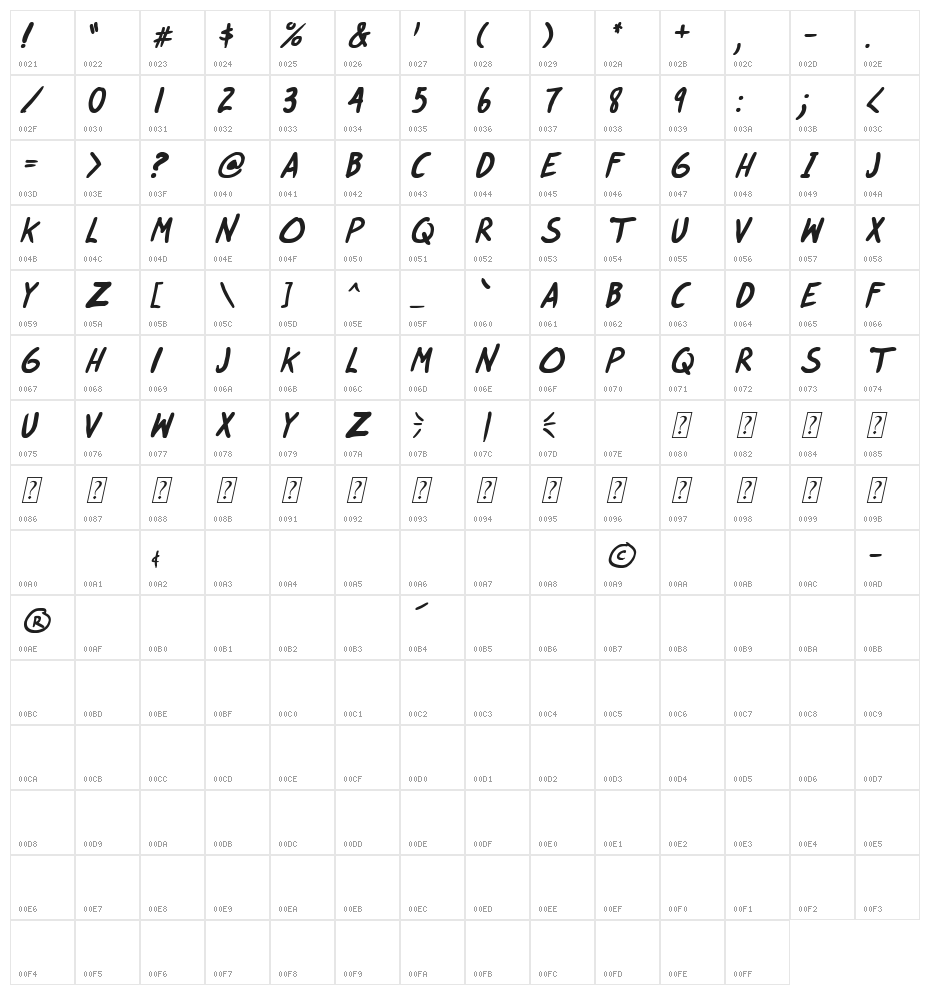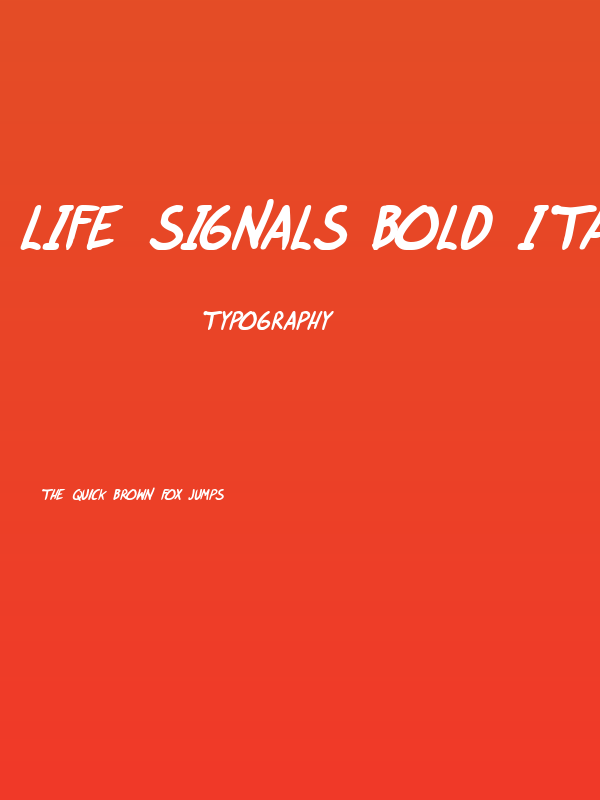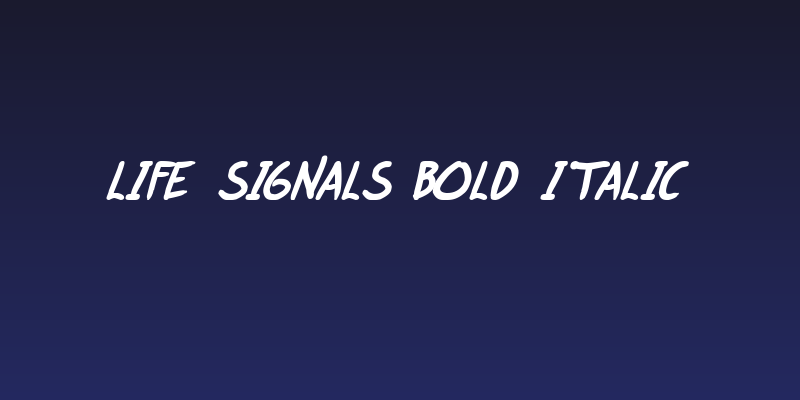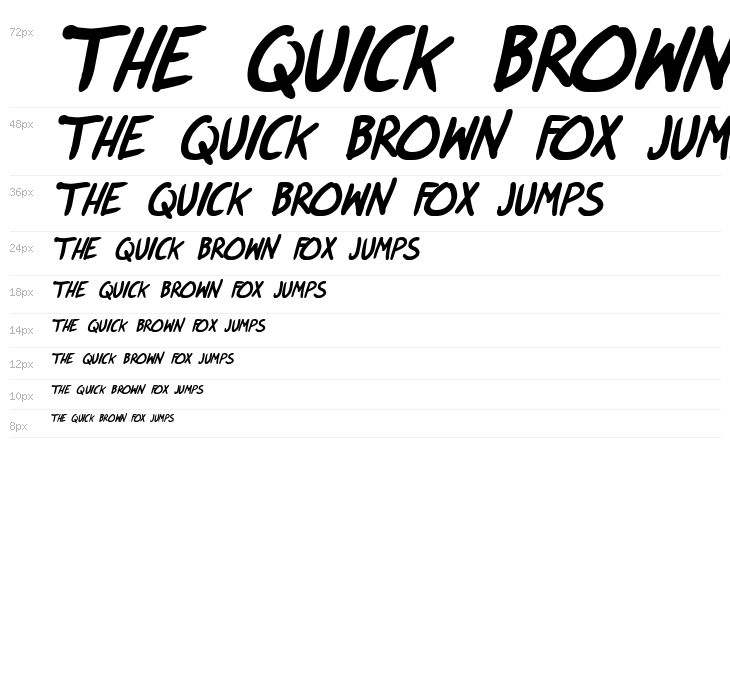
life signals Bold Italic Font
life signals Bold Italic Description
This font features a bold and dynamic handwritten style, characterized by its fluid and energetic strokes. The letters are slightly slanted, adding a sense of motion and liveliness. The uppercase and lowercase letters maintain a consistent flow, with rounded edges and a casual, approachable appearance. The numbers and special characters follow the same style, ensuring uniformity across all elements. This font is ideal for projects that require a personal touch or a creative flair, such as invitations, posters, or branding materials.